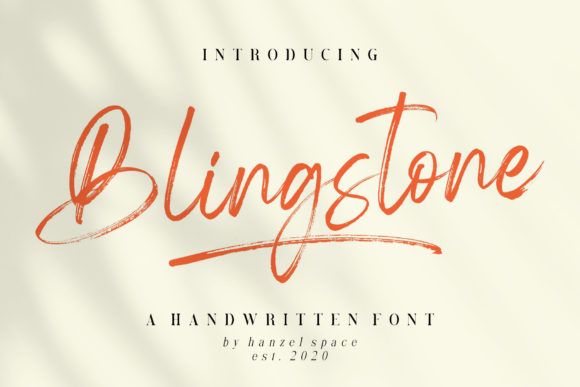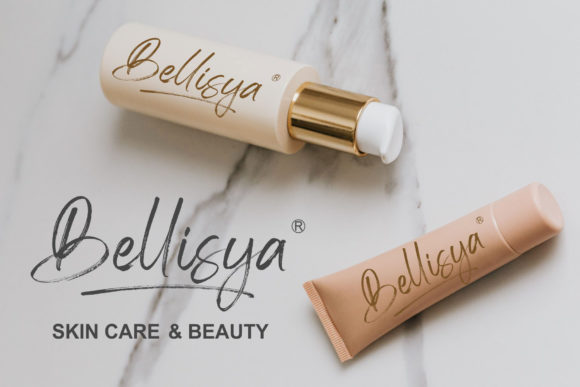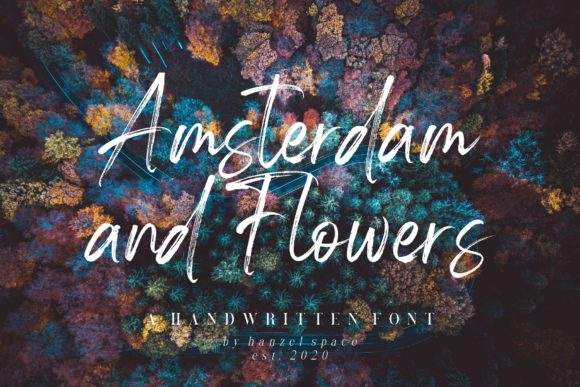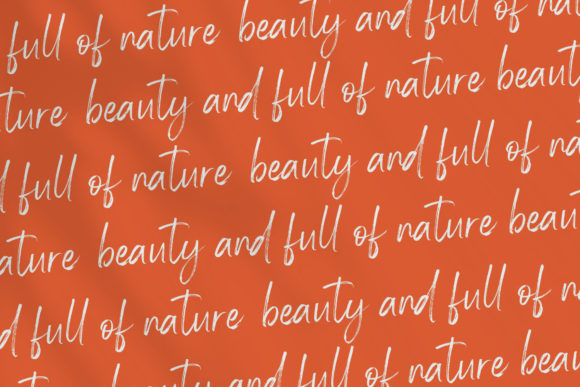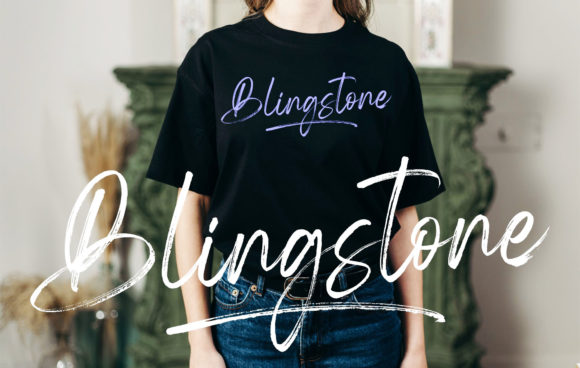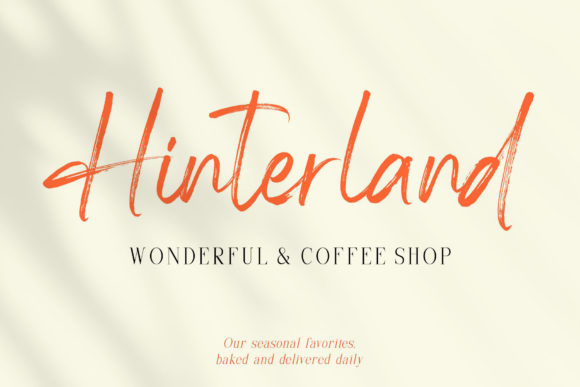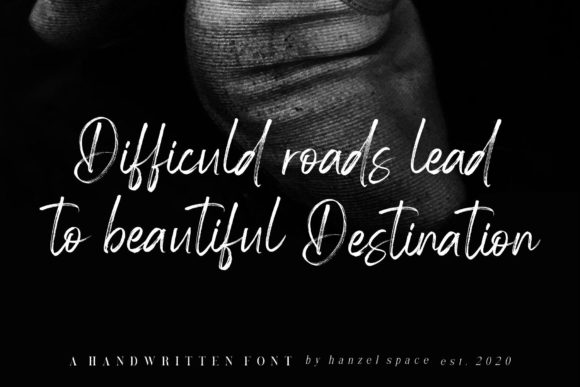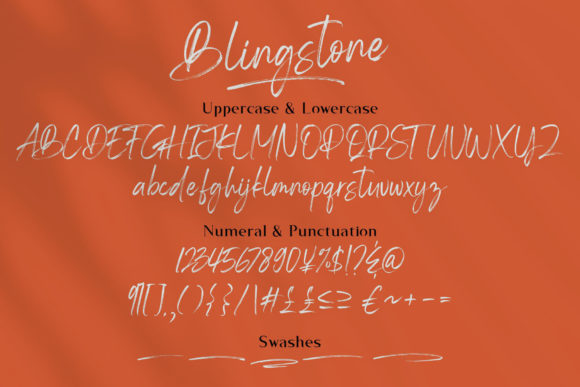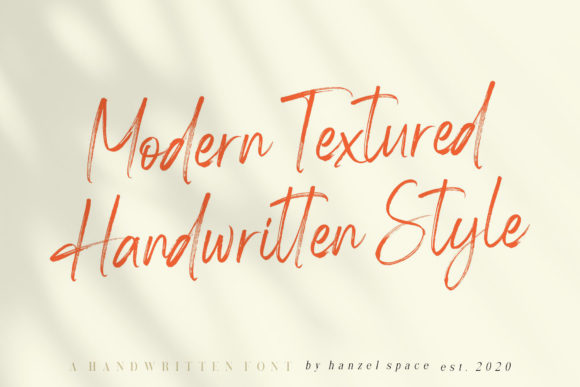
Blingstone Font
About Blingstone Font
Blingstone is a stunning and elegant brushed handwritten font that stands out with its natural and unique style. With its versatility, Blingstone can be used for various design projects, creating an eye-catching and sophisticated appearance. Here are some ways you can use Blingstone to enhance your designs:
1. Branding: Blingstone’s beautiful and brushed texture makes it an excellent choice for creating stylish logos and visual branding elements. Its unique style adds a touch of elegance and sophistication to brand identities.
2. Product Packaging: Use Blingstone to design captivating product labels and packaging, enhancing the overall presentation and attracting customers’ attention.
3. Wedding Invitations: Blingstone’s natural and elegant flow makes it ideal for crafting exquisite wedding invitations, adding a touch of romance and luxury to the event.
4. Quotes and Social Media: Create eye-catching quote graphics and social media posts with Blingstone to captivate your audience and leave a lasting impression.
5. Artistic Prints: Use Blingstone to create art prints, posters, and typography art pieces that bring a sense of creativity and uniqueness to any space.
6. Apparel and Merchandise: Apply Blingstone to t-shirts, clothing, and various merchandise to create stylish and fashionable designs that resonate with the target audience.
7. Stationery: Blingstone’s natural and brushed appearance makes it suitable for designing elegant letterheads, business cards, and other stationery items.
8. Editorial Designs: Use Blingstone for magazine titles, book covers, and editorial layouts to add a touch of sophistication and artistic flair.
9. Greeting Cards: Design stunning greeting cards for different occasions with Blingstone, conveying warm sentiments and conveying a sense of luxury.
10. Packaging Design: Apply Blingstone to create captivating and upscale packaging designs, leaving a lasting impression on consumers.
In conclusion, Blingstone is a beautiful and versatile brushed handwritten font that can elevate a wide range of designs. Its natural flow and unique style make it a great choice for branding, invitations, quotes, social media, apparel, and various other creative projects. Incorporate Blingstone into your design arsenal to add a touch of elegance and sophistication to your creations.